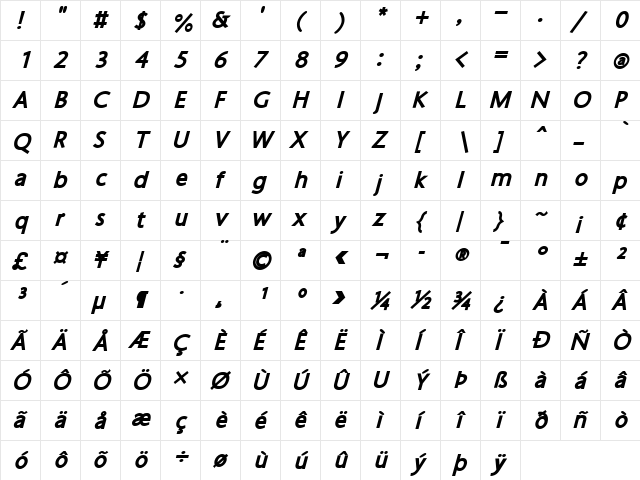
OskiDakelh Bold Italic
| Designer | Chris Harvey |
Design Context for OskiDakelh Typeface
OskiDakelh is a composed and adaptable typeface that performs quietly and consistently across a wide range of design contexts. Its italic angle brings a sense of urgency and motion to the letterforms. Its bold stroke weight gives it real presence on the page.
Pro Tip: Use OskiDakelh for emphasis, pull quotes, and subheadings where its slanted energy can add rhythm to the layout.